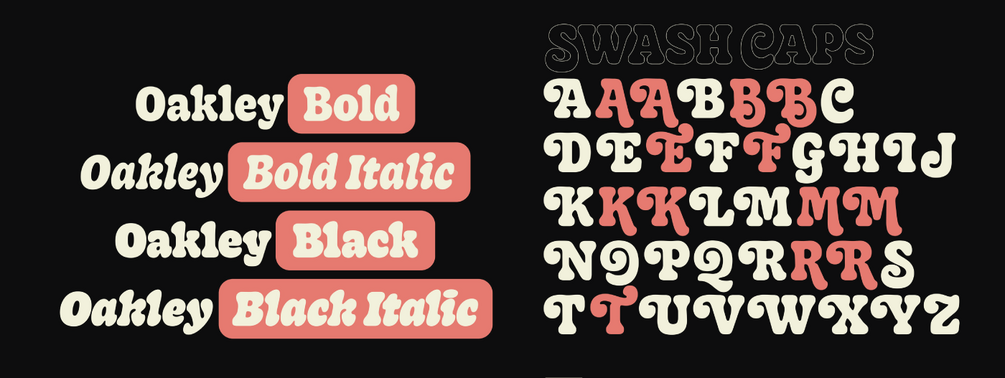
Oakley
Oakley is an homage to the expressive, soft and rounded old-style serif typefaces from the sixties and seventies. Its gentle and juicy serifs give the typeface the right amount of warmth and nostalgia. While hinting at the classic Cooper-like style, the reinterpretation features several unconventional letterforms which make both the roman and italic styles remarkably dynamic.
Featuring 4 styles: bold and black, each along with its true italic companion. Its extended Latin character set features 438 glyphs, supports over 75 languages and includes contextual and stylistic alternates, swash capitals, ligatures & more…